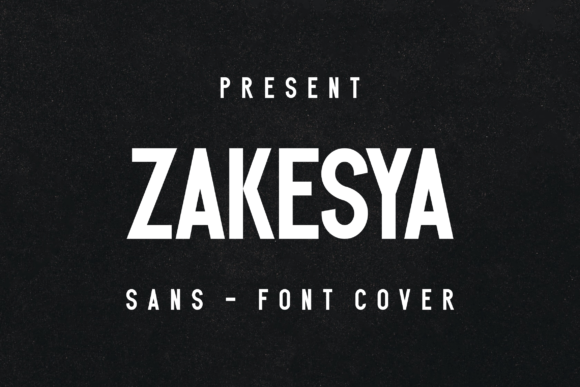
**Zakesya Font: The Epitome of Elegance and Modernity for Your Design Endeavors**
In the realm of typography, Zakesya Font stands as a beacon of elegance and modernity, ready to elevate your design projects to unprecedented heights. This sans serif font, meticulously crafted by the skilled artisans at Monoletter, embodies a minimalist and clean design ethos, effortlessly enhancing the visual appeal of your creations.
Zakesya Font's inherent versatility knows no bounds, seamlessly adapting to a myriad of design applications. Whether you seek to adorn book covers with a touch of sophistication, infuse magazines with a contemporary flair, or captivate audiences with visually stunning social media posts, Zakesya Font emerges as the ideal choice. Its clean lines and understated charm lend themselves perfectly to invitations, effortlessly adding a touch of elegance to life's special moments.
Beyond its aesthetic prowess, Zakesya Font possesses a remarkable ability to convey emotions and messages with remarkable clarity. Its clean and modern design ensures that your words resonate with your audience, leaving an indelible mark on their minds. Whether you seek to inspire, inform, or simply connect, Zakesya Font serves as the perfect medium to amplify your message and leave a lasting impression.
**Zakesya Font: The Font of Choice for Design Excellence**
As you embark on your creative journey, Zakesya Font stands ready to accompany you every step of the way. Its elegant and modern design seamlessly integrates into a wide spectrum of design styles, enhancing the visual impact of your projects and leaving a lasting impression on your audience.
With Zakesya Font, the possibilities are endless. Unleash your creativity and watch as your designs transform into captivating masterpieces. Experience the joy of effortless elegance and modern sophistication as you weave your design magic with Zakesya Font.
**Zakesya Font: The Perfect Companion for Your Design Journey**
Zakesya Font is more than just a font; it's an indispensable tool that empowers you to create designs that speak volumes. Its versatility and adaptability make it the perfect choice for designers of all skill levels, from seasoned professionals to aspiring enthusiasts. Embrace the transformative power of Zakesya Font and witness the remarkable evolution of your design creations.